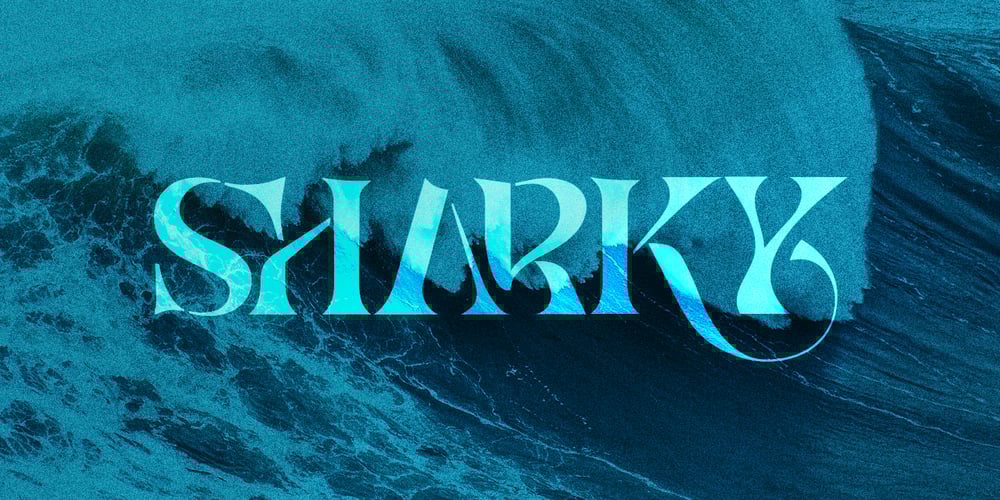
Sharky Font Family was designed by Jarnawi Saja and published by Grontype. Sharky contains 1 styles and family package options. Sharky is a tough bold serif font, inspired from the mighty shark which lives underneath water. This font is created with unique sharp edges all around the side and provided some extra ligatures and alternatives glyphs that makes this font worth in to your design project. This font also perfect for any branding.Sharky Features: Sharky Uppercase and Lowercase font Numerals and Punctuations Multilingual Support Ligatures and Alternates Thankyou for picking this font.if you have question, send me a message and I am gladly to answer.regard, Grontype